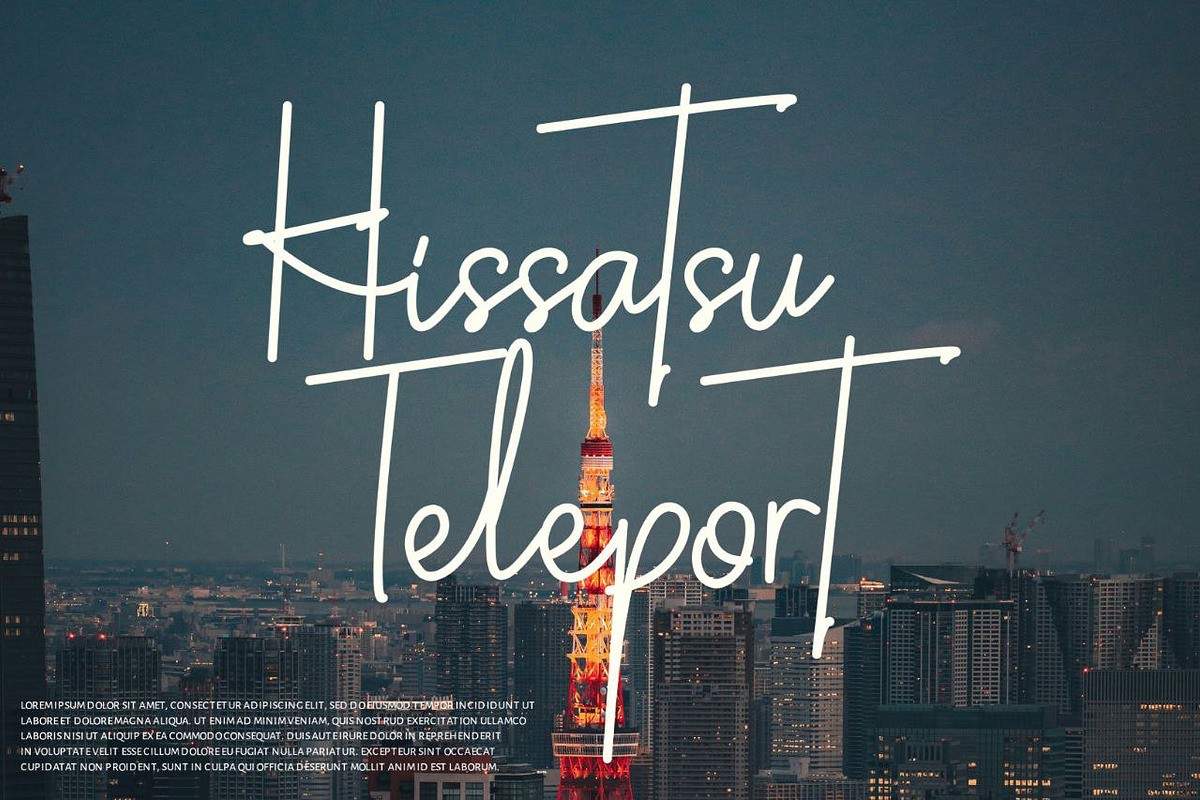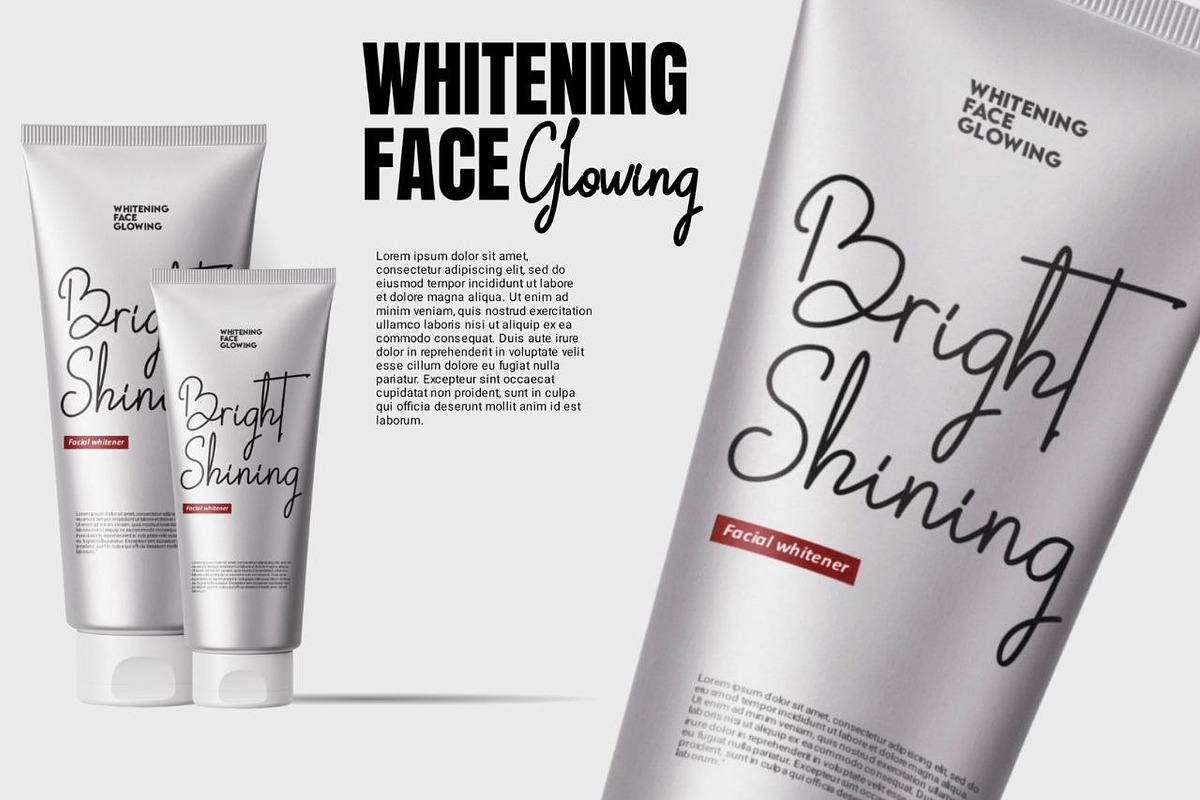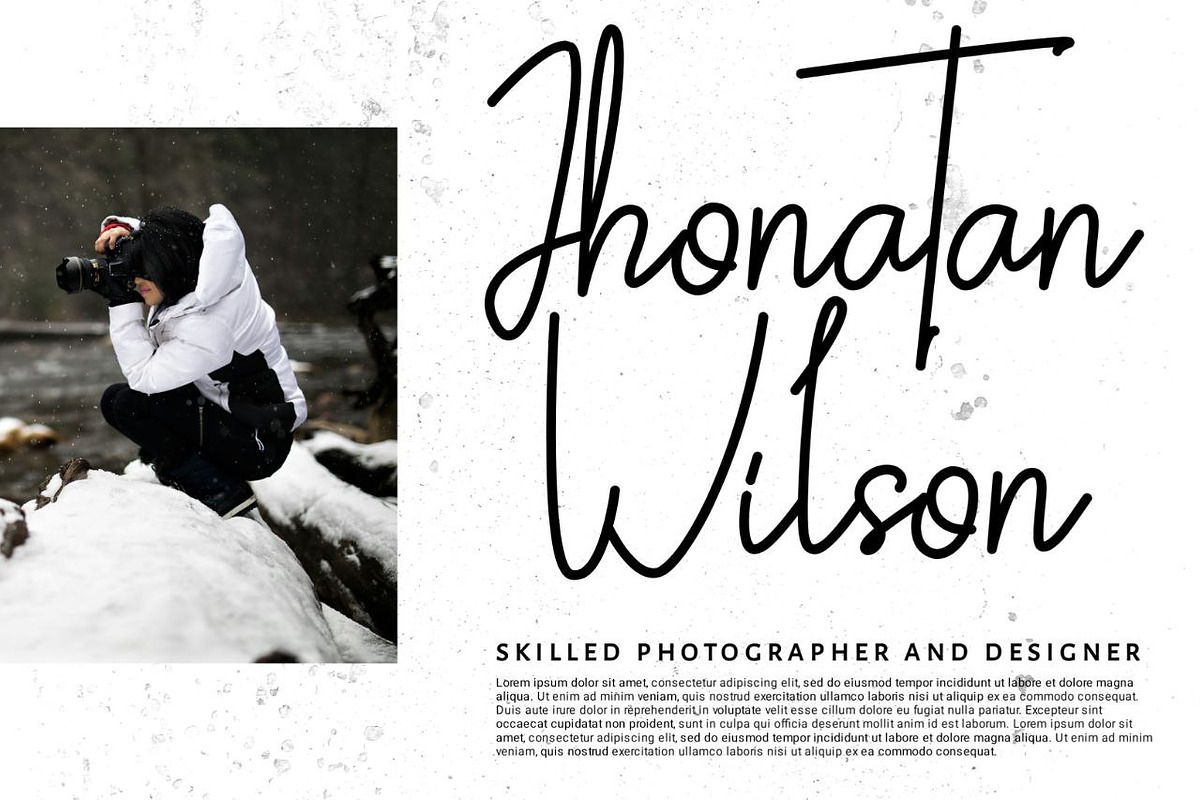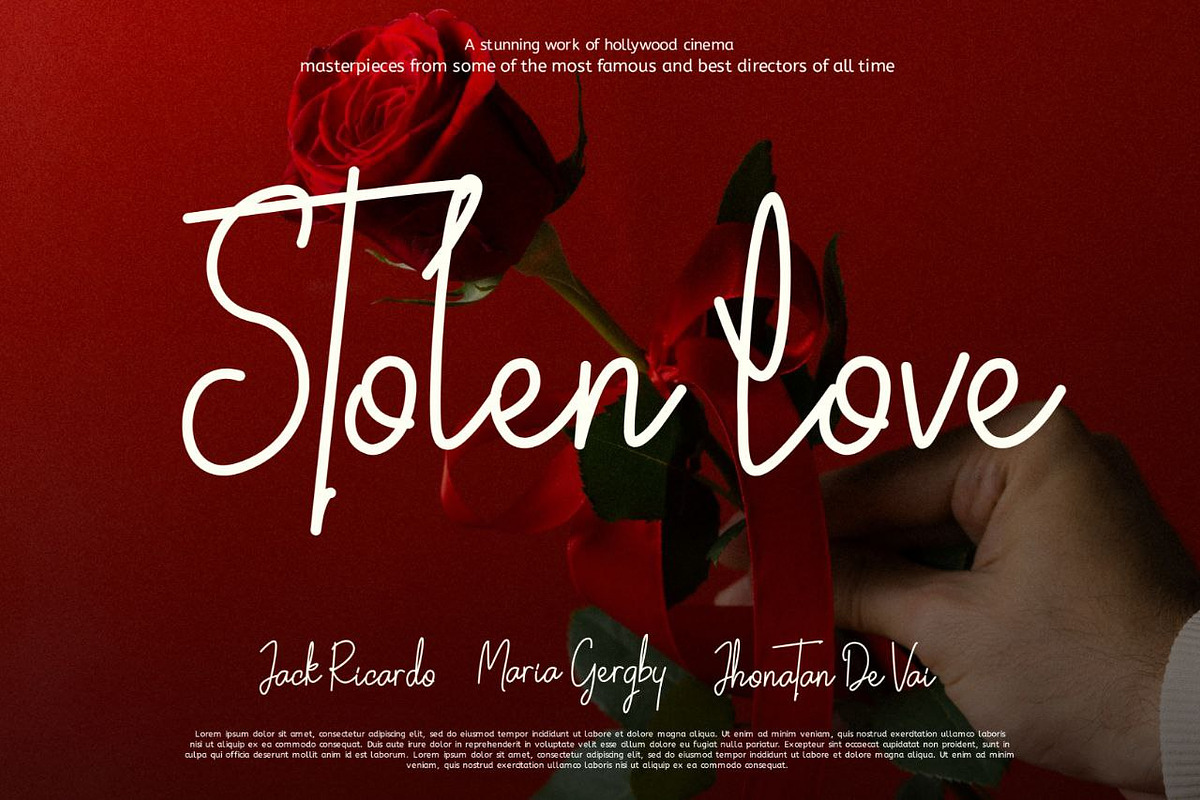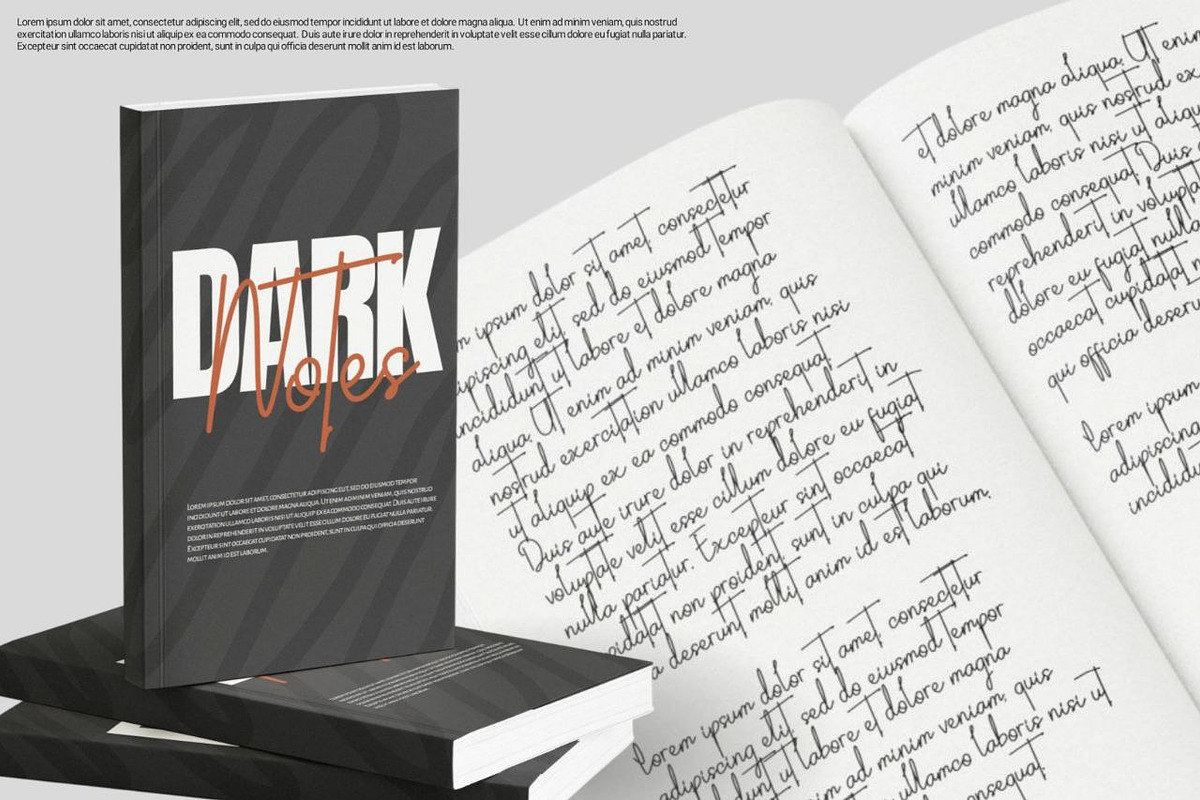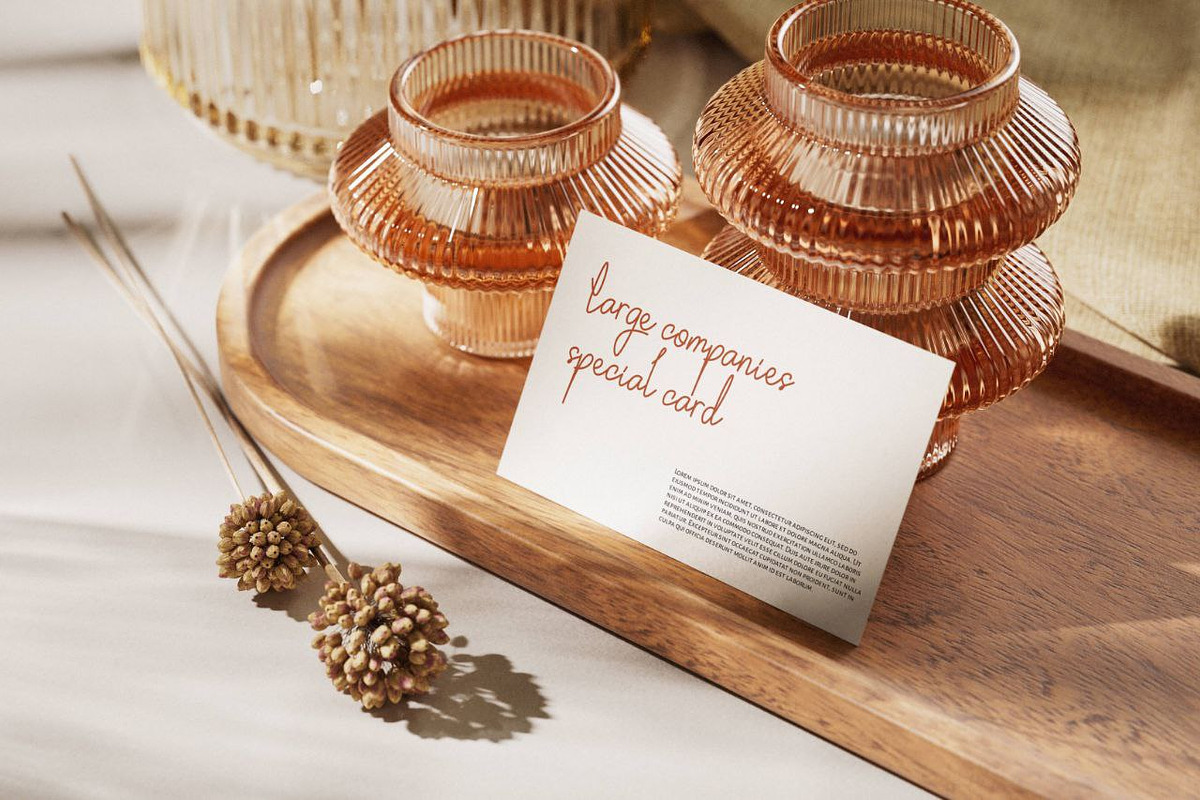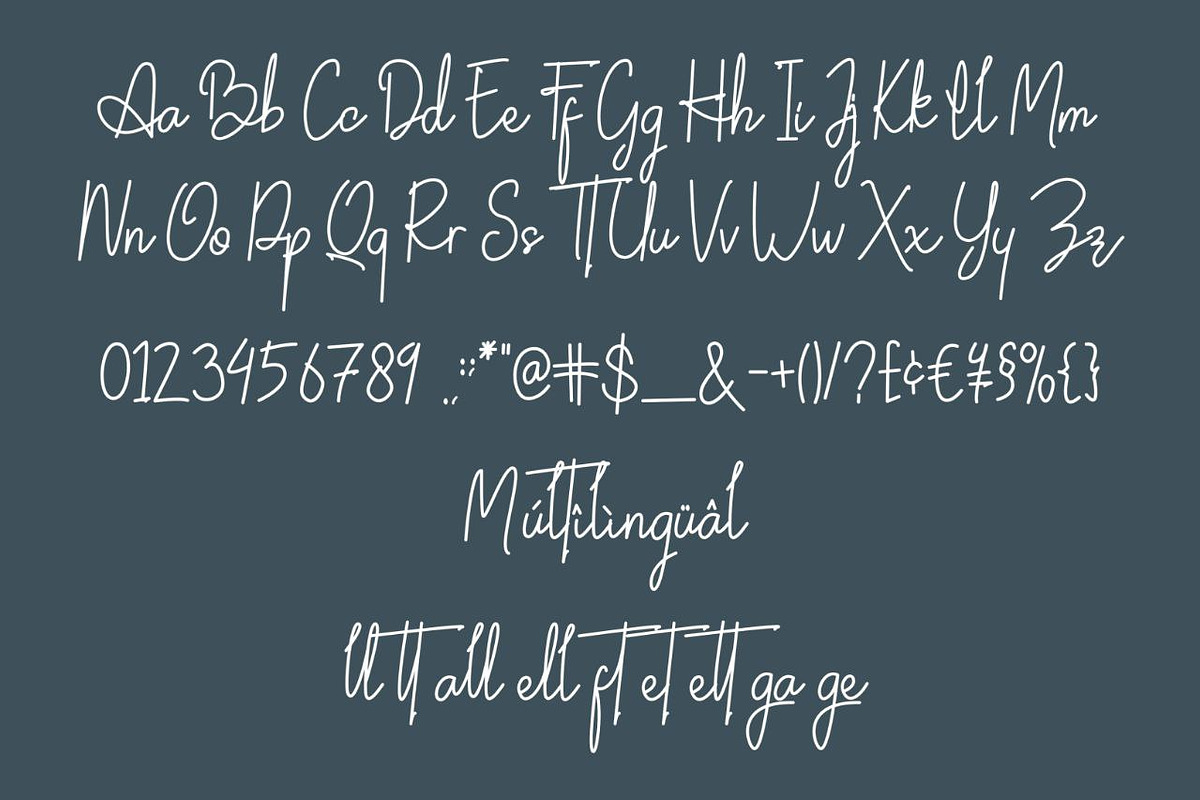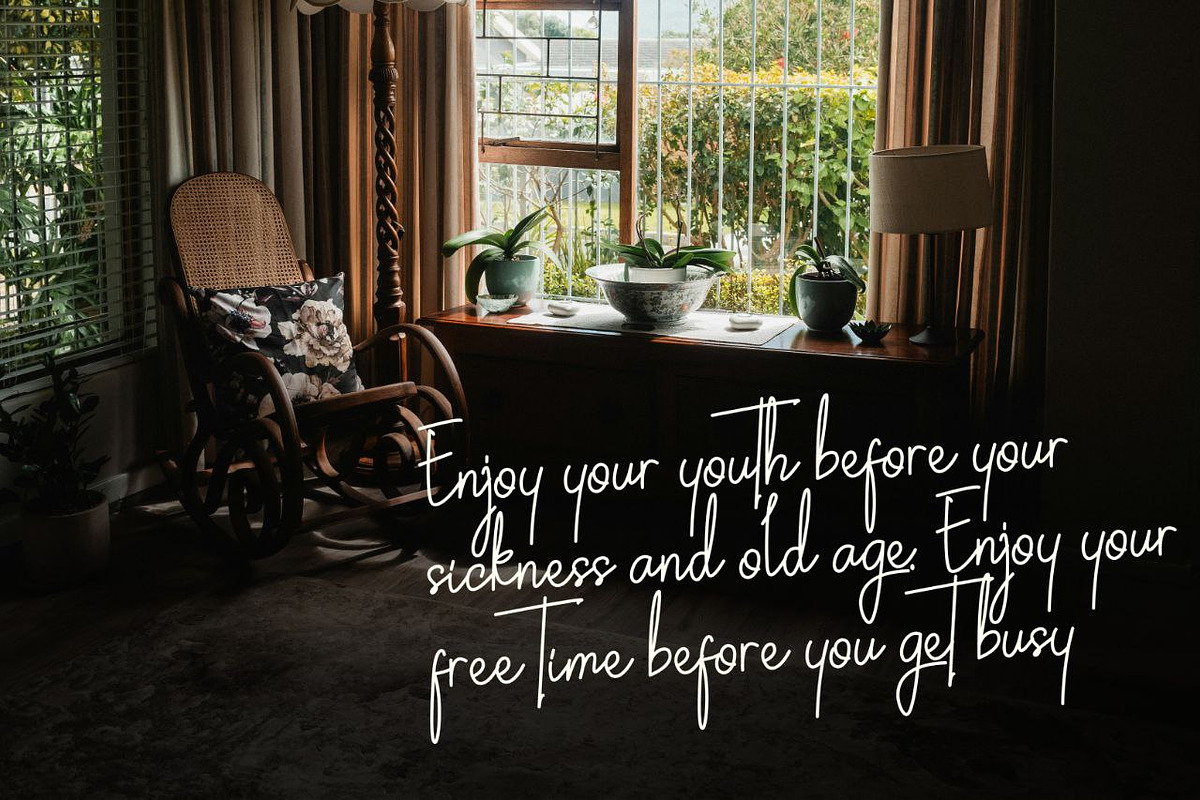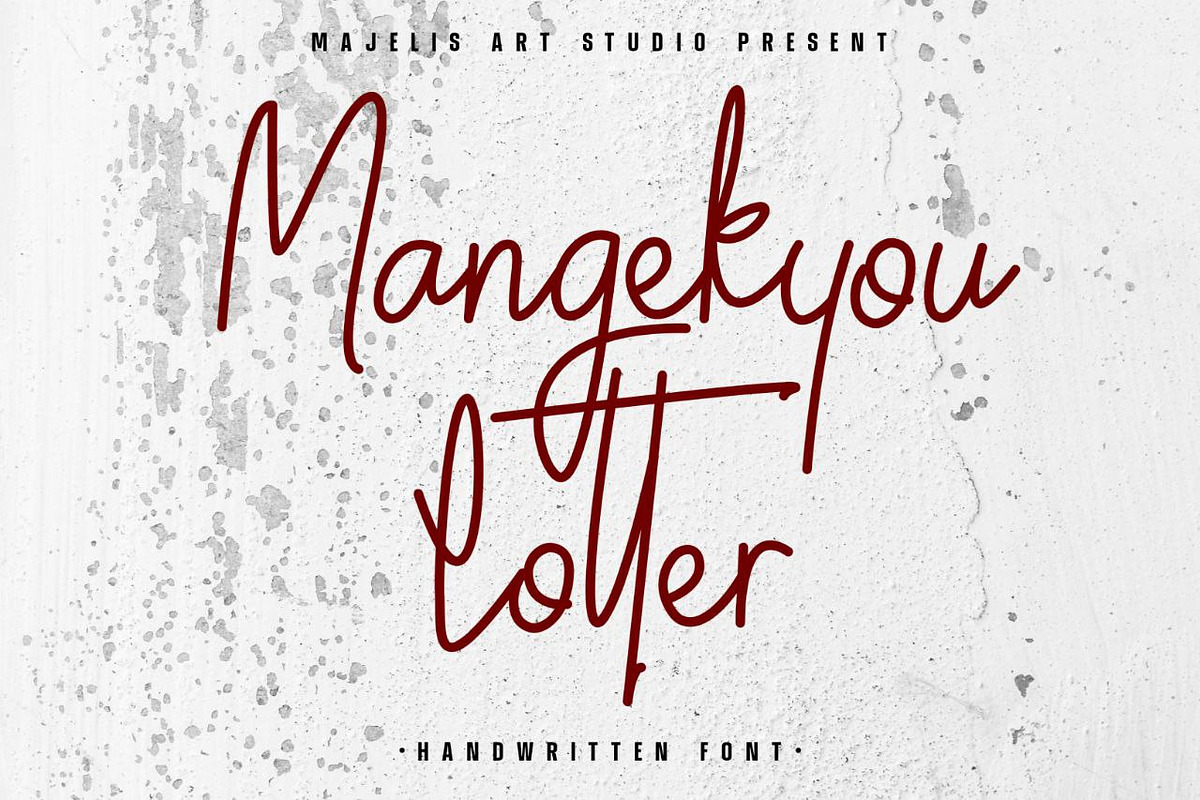
Mangekyou Lotter
Mangekyou Lotter is a font based on handwritten signature. As the name suggests, this font imitates the style of modern century handwriting. This font is very useful for pamphlets, quotes, sales banners, marketing products, wedding invitations, suitable for use on ID cards, and for use on book covers. And much more
- Ligature support